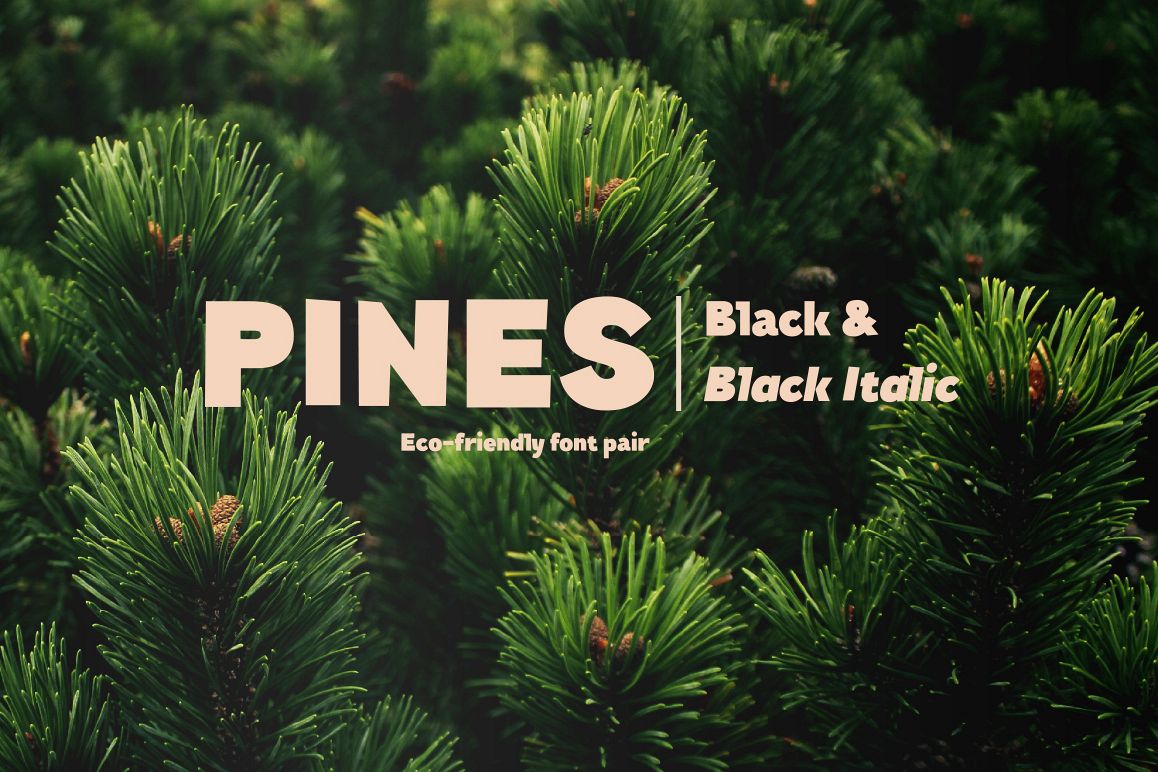
Pines Black & Pines Black Italic
Take advantage of the powerful, yet at the same time
friendly font pair Pines Black & Pines Black Italic.
Sometimes we only need a few faces to make our creative ideas come to live. For this specific purpose we've split some of our popular font families into all-sufficient font pairs.
Imagine you’ve decided to cut letters out of paper thereby creating a modern sans-serif for a broad application range. What result would you get? We already know the answer! Pines is a font duo that we’ve carefully cut out of paper and then added lots of emotions and a few bright natural accidental details.Now you can create any text layouts and contemporary design with special warmth and friendliness that was inspired by paper. Pines is great for any ecological design theme. Use if for websites, hand-made items, and eco-friendly products packaging. It is also great for ecological brand identity and navigation. We’ve named the fonts Pines since it perfectly integrates into the natural environment and looks authentic and harmonious as if it came from the pine forest itself.